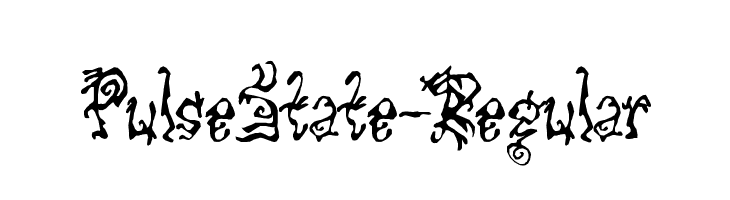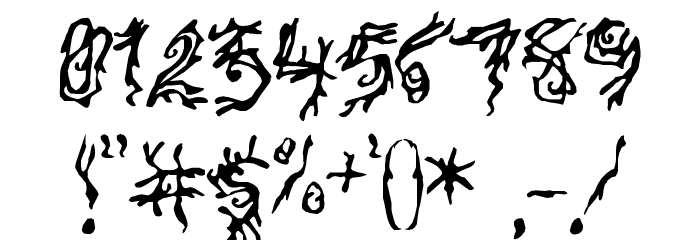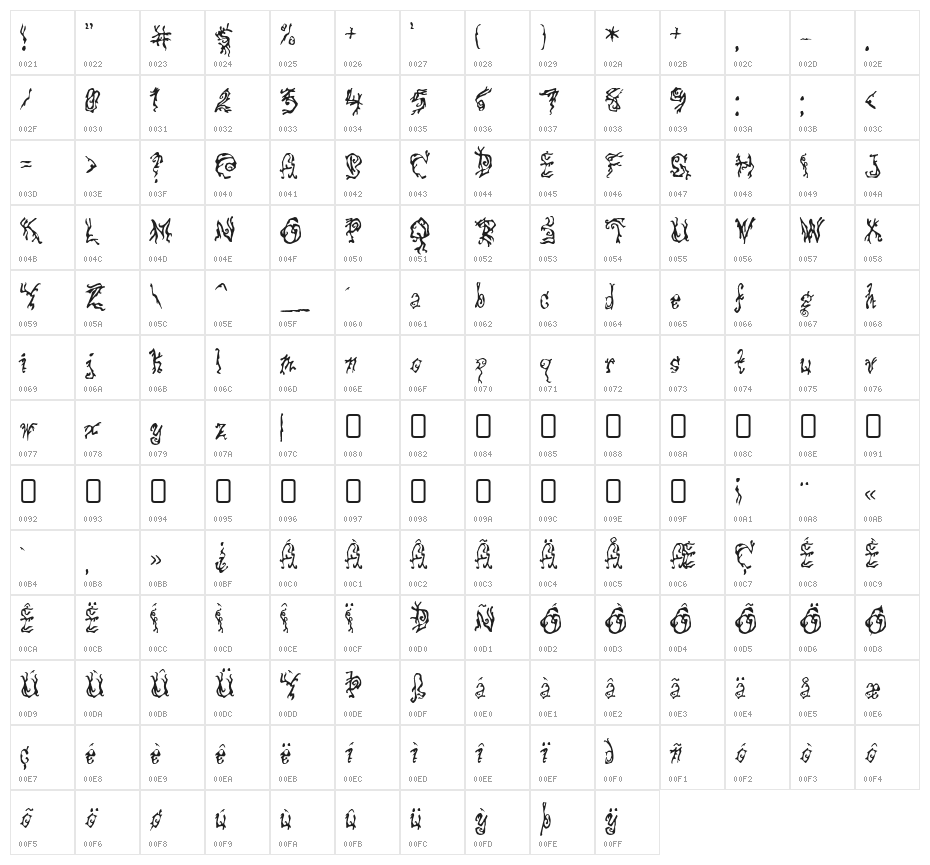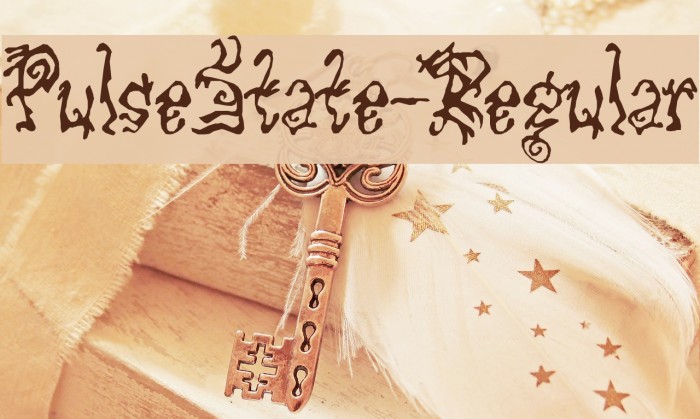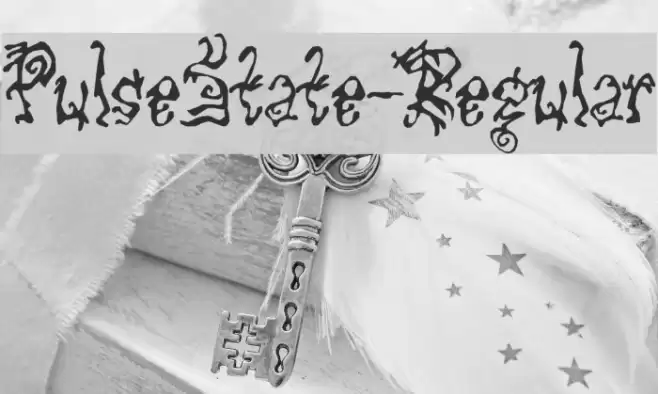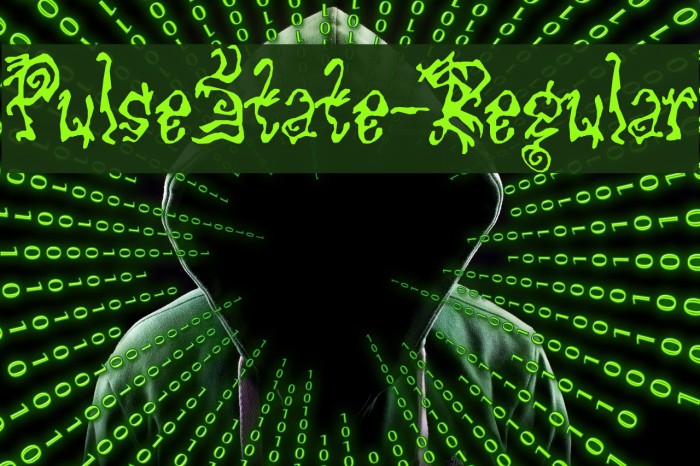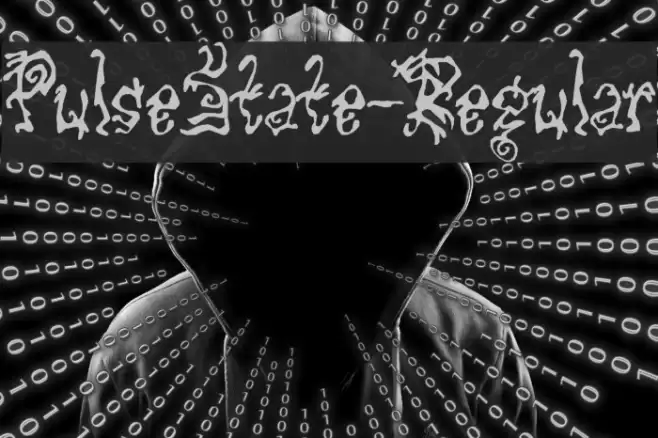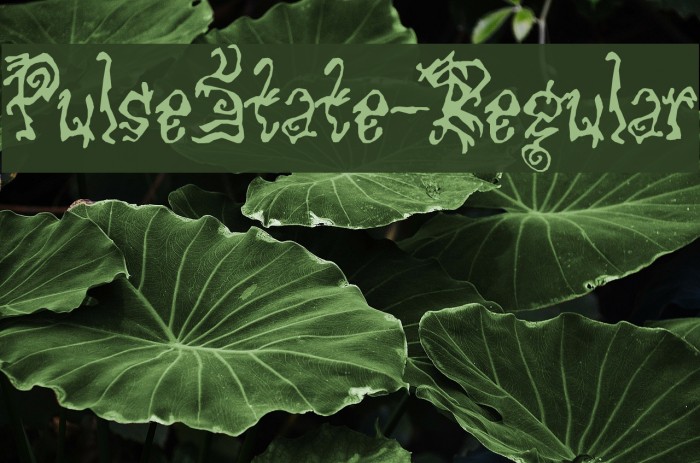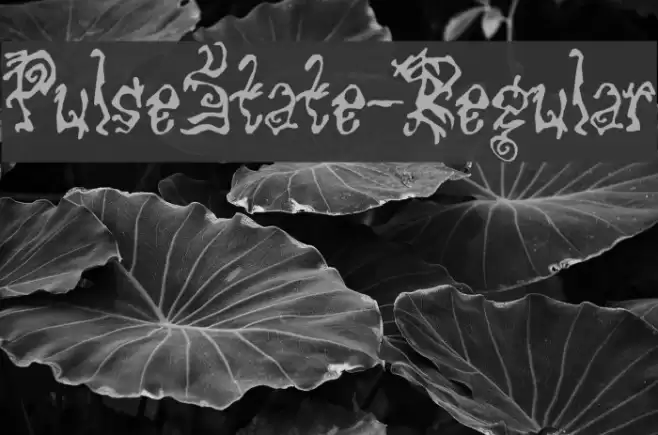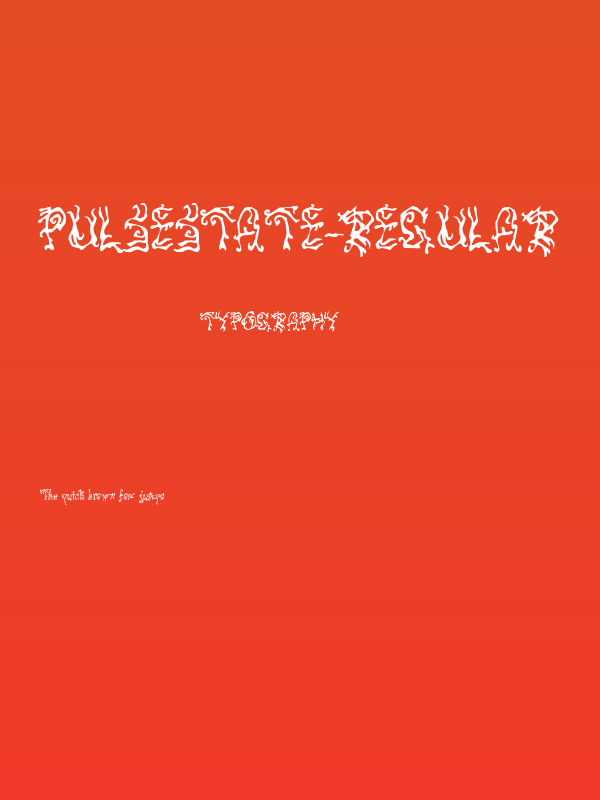
PulseState-Regular Font
PulseState-Regular Description
This font exhibits a highly decorative and chaotic style, reminiscent of twisted vines or electric currents. The characters are irregular and jagged, giving an impression of movement and energy. Each letter is unique, with varying stroke thickness and intricate detailing that creates a sense of unpredictability. The uppercase and lowercase letters maintain a consistent theme, while the numbers and special characters follow suit with equally elaborate designs. This font is visually striking and demands attention, making it suitable for projects that require a bold and unconventional aesthetic.
| Proposed Projects | Ideal for album covers, horror-themed posters, edgy branding, or any project seeking a bold, unconventional look. |